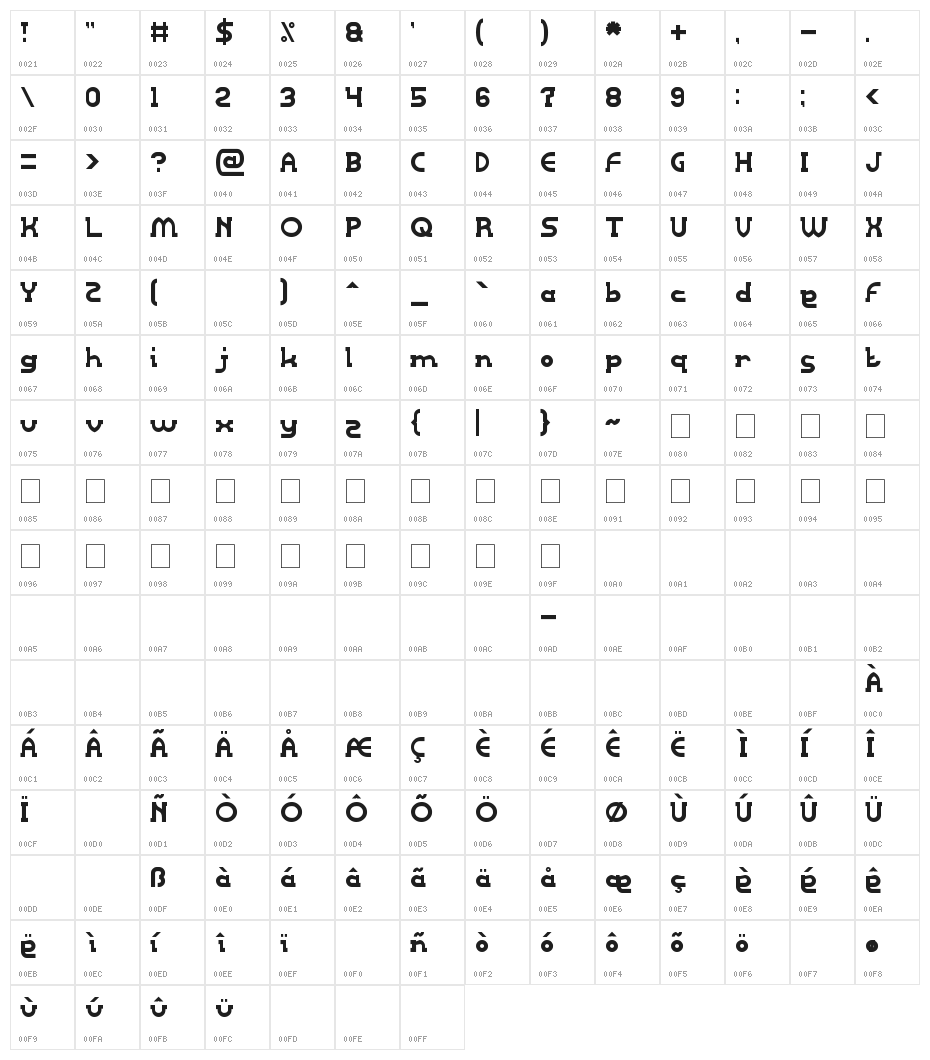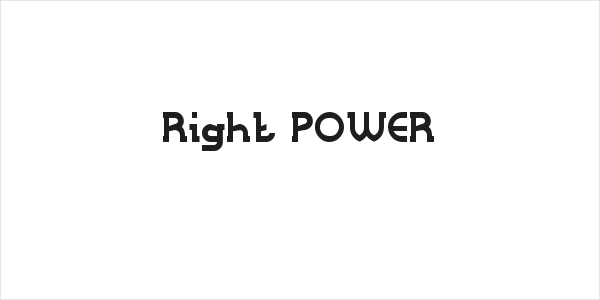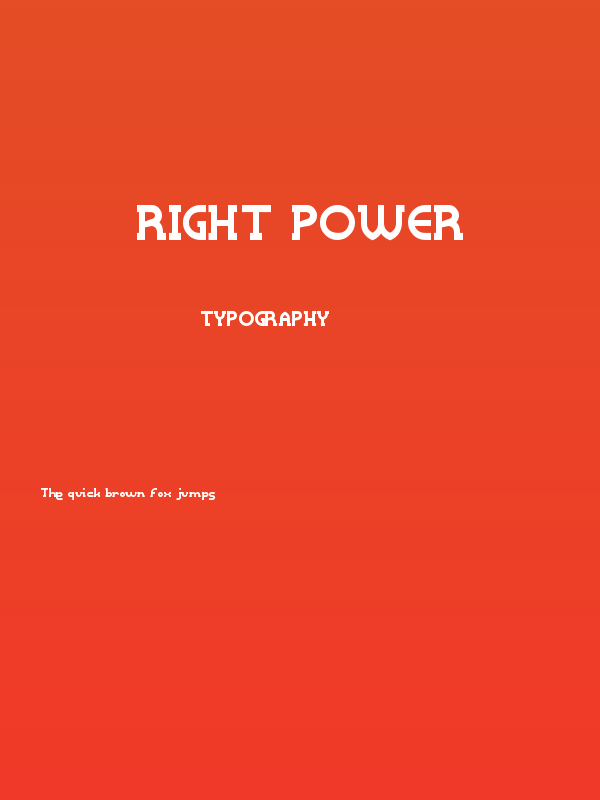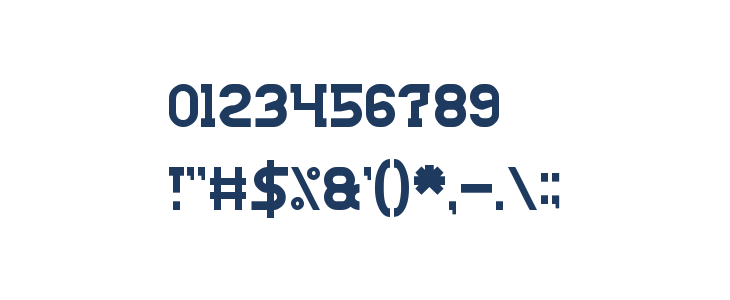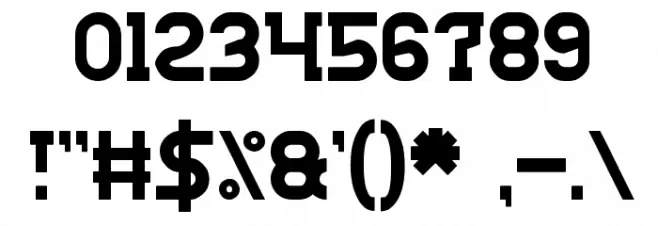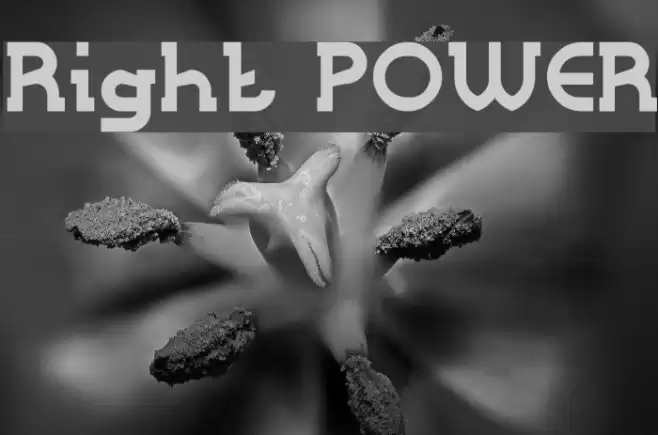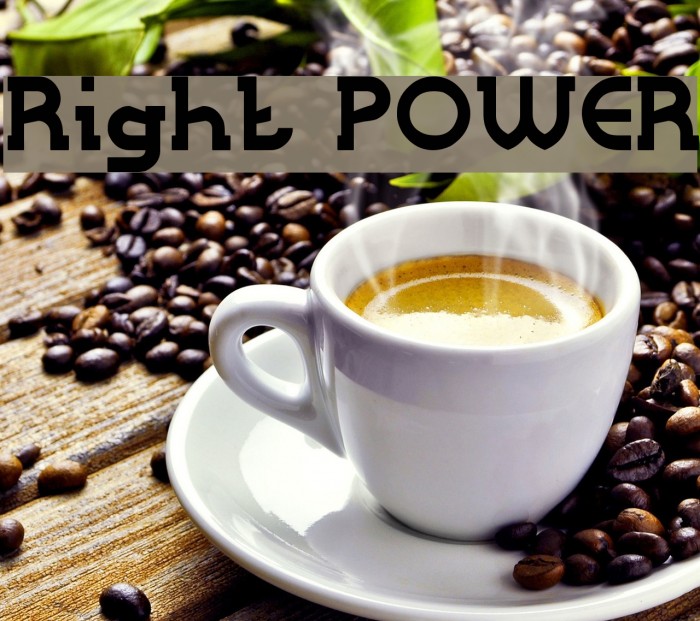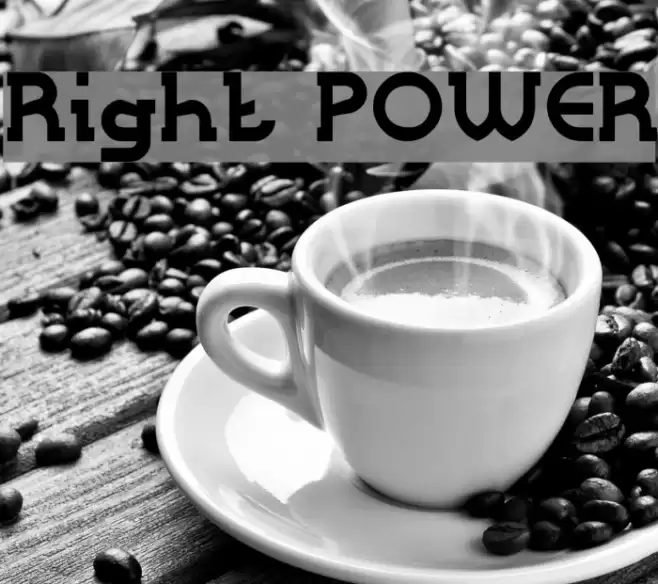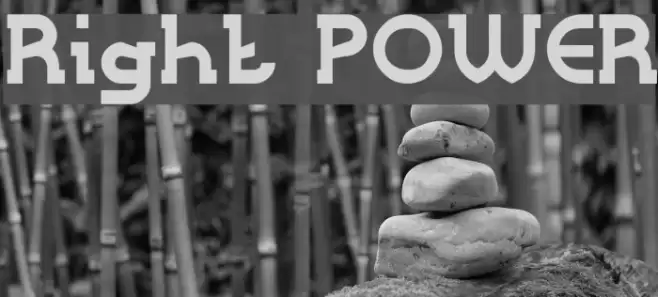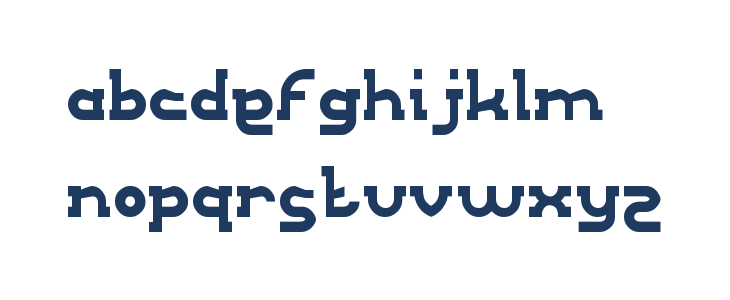
Right POWER Font
Right POWER Description
This font features a bold and geometric style with a strong presence. The characters are constructed with thick strokes and a consistent weight, giving them a robust and solid appearance. The uppercase letters have a uniform height, while the lowercase letters maintain a similar thickness, creating a cohesive look. The numerals are equally bold, ensuring readability and impact. Special characters are designed with the same geometric precision, making them stand out. This font is ideal for projects that require a modern and assertive aesthetic.